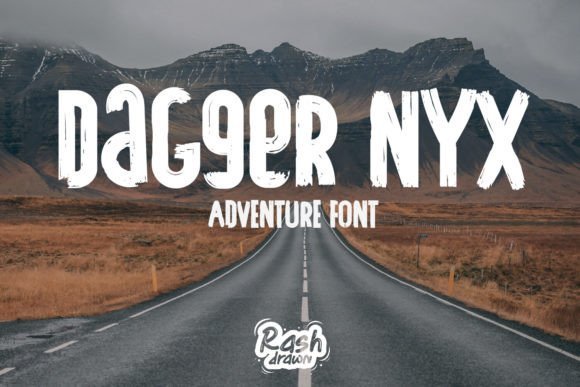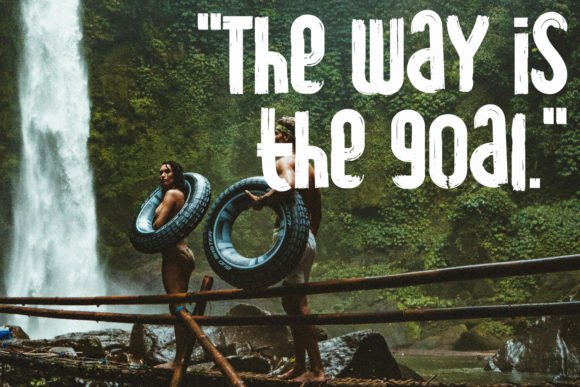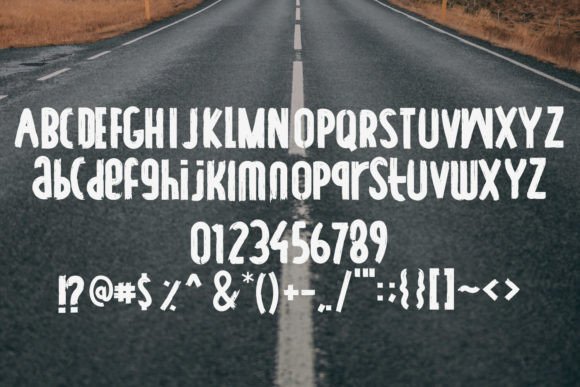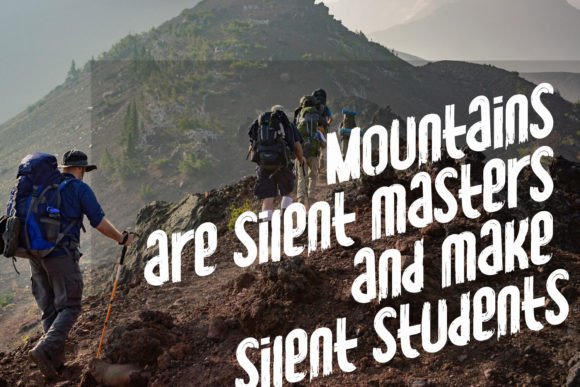
Unleash Your Creativity with the Perfect Font
Have you ever been in the middle of a creative project, staring at a blank screen, searching for that one element that will make your design truly stand out? You know, that moment when the words just aren’t flowing, and the image isn’t quite coming together? We’ve all been there. But what if we told you that the perfect solution is just a font away?
Meet the Dagger Nyx Font, a stunning outdoor adventure decorative font designed specifically for sticker design, t-shirt design, wall art, and more. This font is a game-changer for designers looking to add a touch of rugged elegance to their projects. With its unique blend of modern and vintage elements, the Dagger Nyx Font is the perfect addition to any creative endeavor.
Dagger Nyx Font Key Features
- Font Family: Dagger Nyx is a unique sans-serif font with a futuristic and edgy feel, making it ideal for modern designs.
- Unique Characteristics: Features a distinctive geometric shape with sharp angles, making it perfect for creating bold and eye-catching headlines.
- Font Weight: Available in 7 font weights, including Light, Thin, Regular, Medium, Bold, Heavy, and Black, allowing for a range of design styles.
Dagger Nyx Font Review
I recently had the chance to work with the Dagger Nyx Font, and I wanted to share my honest thoughts on its performance.
- The font’s bold and edgy design is perfect for creating striking headlines and titles.
- The varied letter spacing and texture add a unique touch to the overall aesthetic.
- The font supports a wide range of languages, making it a great choice for multilingual projects.
- The weight and contrast options provide flexibility for adjusting the font’s appearance to suit different design needs.
- The font may be too bold for certain applications, such as body text or captions.
- The texture and letter spacing may be overwhelming in certain contexts, requiring careful balance and adjustment.
- The font’s design may not be suitable for projects requiring a clean, minimalist look.
The Dagger Nyx Font is a great choice for designers looking to add a touch of edginess and sophistication to their projects. While it may have some limitations, the font’s unique design and features make it a valuable addition to any design toolkit.
Dagger Nyx Font: A Practical Application Guide
To get the most out of the Dagger Nyx Font, try using it in combination with other design elements, such as bold text or colorful backgrounds. You can also experiment with different font sizes and styles to create a unique look.
The Dagger Nyx Font is ideal for use in dark or edgy designs, such as goth or industrial-themed presentations or documents. It’s also a great choice for use in titles or headings where you want to add a touch of drama or sophistication.
Alternatives to Dagger Nyx Font
Montserrat Font is a geometric sans-serif typeface designed by Julieta Ulanovsky. It’s perfect for use in headings and titles where a modern and sleek feel is desired. Montserrat Font has a more angular and geometric appearance compared to Dagger Nyx Font, making it ideal for digital products and applications.
Comparison to Dagger Nyx Font: Montserrat Font has a more futuristic and industrial feel, whereas Dagger Nyx Font has a darker and more mysterious vibe. Montserrat Font is also more legible in smaller font sizes.
2. Inter Font
Inter Font is a modern sans-serif typeface designed by Rasmus Andersson. It’s suitable for use in body text and headings where a clean and minimalist aesthetic is desired. Inter Font has a more refined and polished appearance compared to Dagger Nyx Font, making it ideal for corporate and business materials.